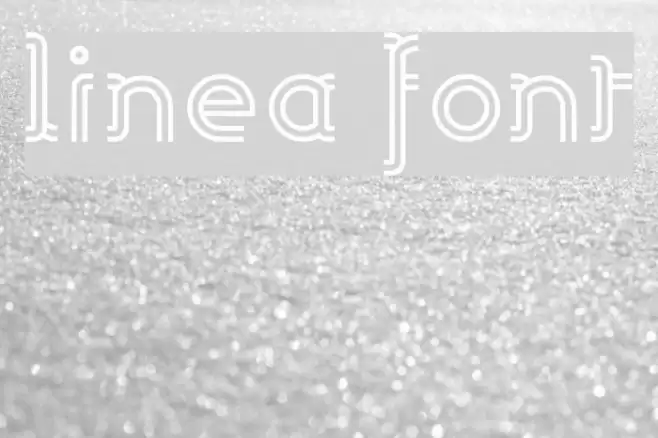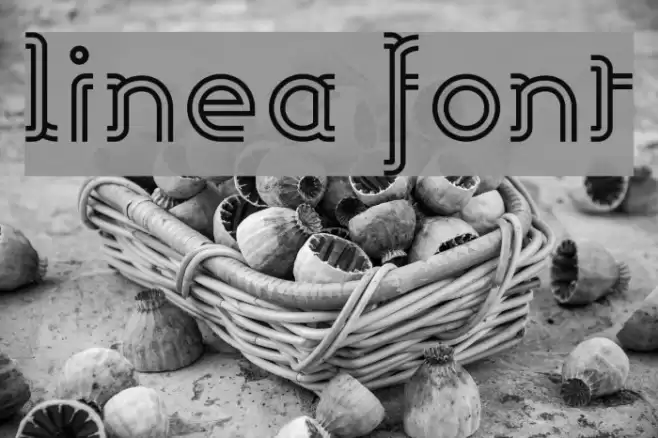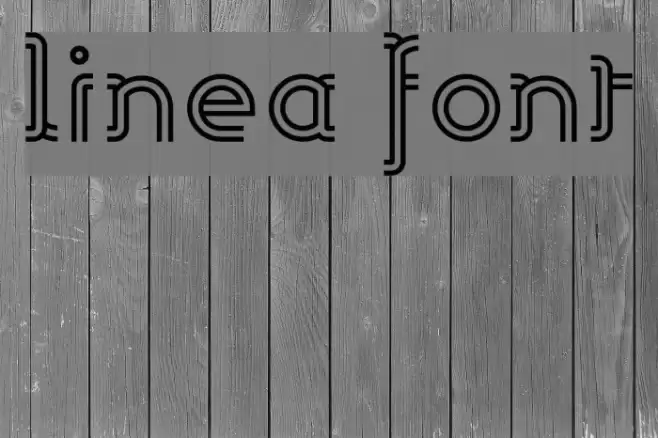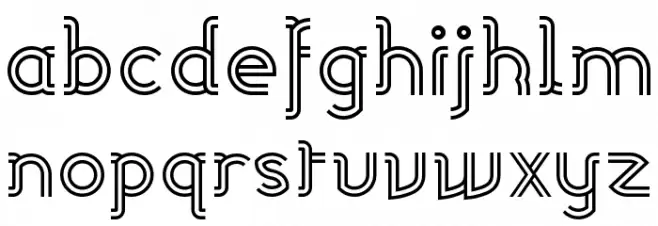
Linea Font
Linea Description
This font features a unique, double-line design that gives it a modern and playful appearance. The characters are outlined with a consistent thickness, creating a hollow effect that adds depth and dimension. The style is geometric with rounded edges, providing a friendly and approachable feel. The lowercase letters maintain a uniform height, while the uppercase letters are slightly taller, ensuring readability. The spacing between characters is balanced, allowing for clear legibility. This font's distinctive style makes it suitable for creative and artistic projects, where a touch of whimsy and modernity is desired.
A modern, double-line font with a playful and geometric style from Uncategorized fonts.
- Proposed Projects: Ideal for creative projects such as posters, logos, and branding materials where a modern and artistic touch is needed.
- Use Case: Logos, Posters, Branding